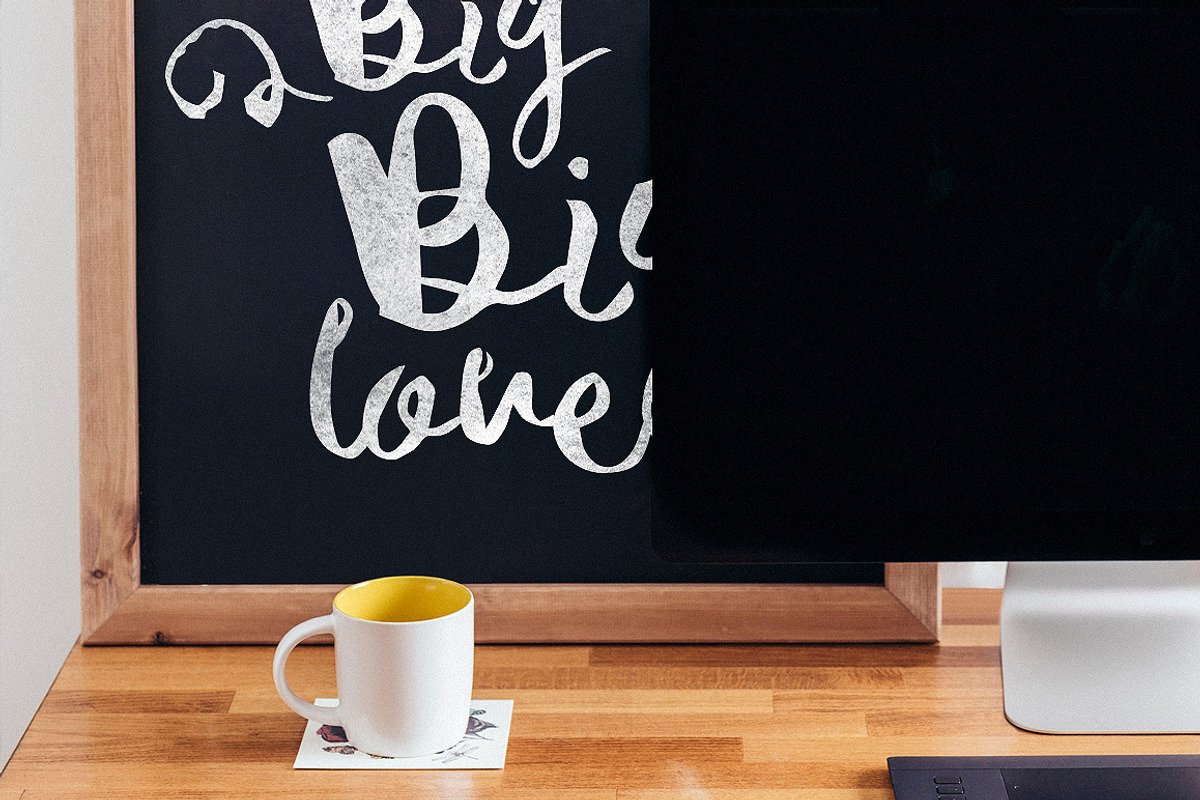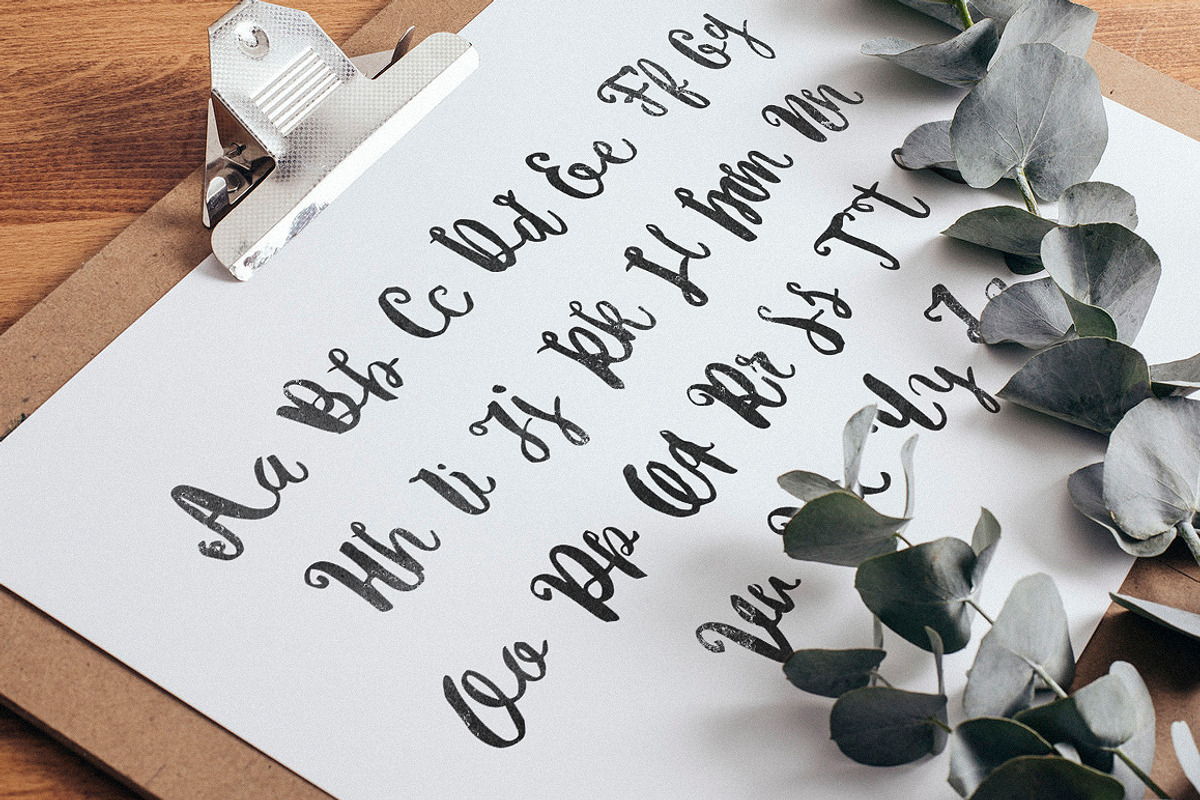
Michelle Font + Bonus
Michelle Font + Bonus by Noe Araujo is a font selected for branding, posters, packaging, typography.
Why Michelle Font + Bonus is worth a look
Michelle Font + Bonus by Noe Araujo fits naturally into Branding, posters, packaging, typography.